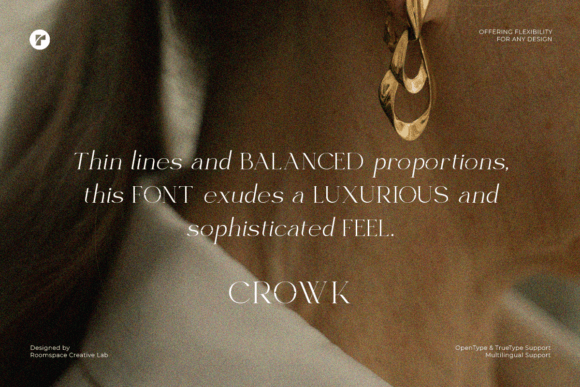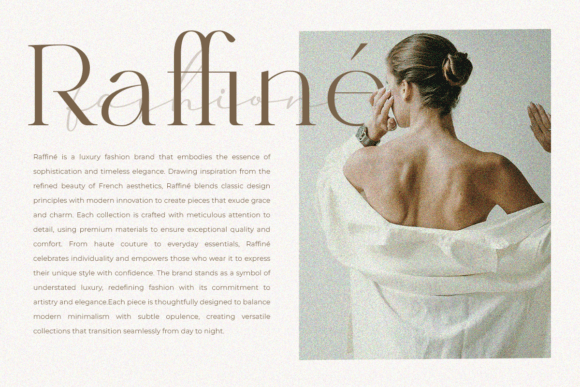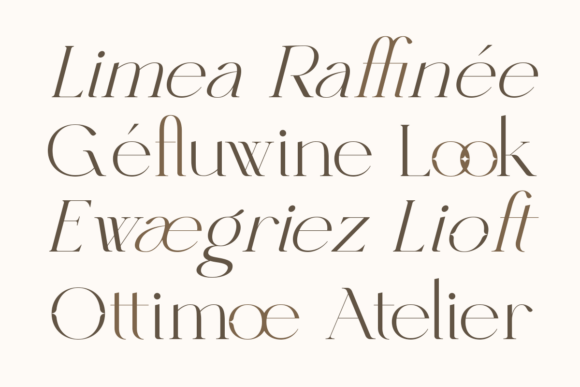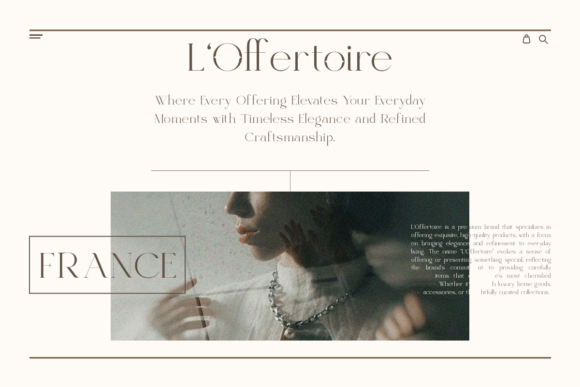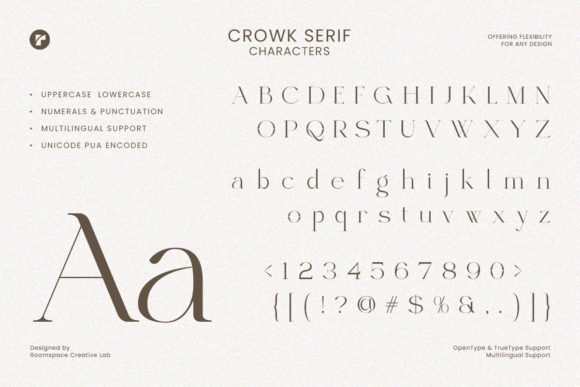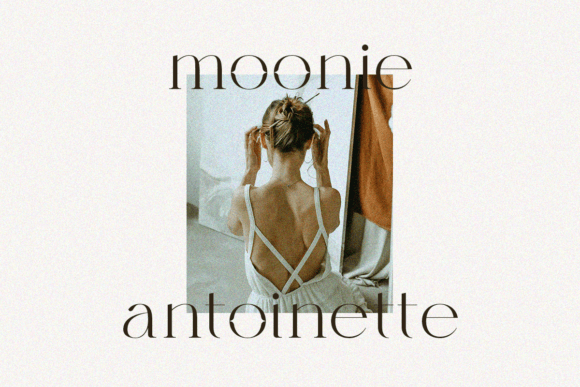
Crowk Font: Elevate Your Design with Timeless Luxury
In the world of typography, a well-crafted font can make all the difference in elevating a design from ordinary to extraordinary. For designers and crafters seeking to infuse their high-end projects with sophistication and elegance, Crowk font is an exceptional choice. This luxury serif font is meticulously designed to bring a touch of refined charm and classic allure to a wide range of applications, from stunning logos and upscale branding materials to editorial layouts.
The Inspiration Behind Crowk
Crowk font draws inspiration from the timeless appeal of classic elegance, seamlessly blending modern aesthetics with a hint of sophistication. The result is a typeface that exudes luxury, poise, and refinement, making it perfect for designers who aim to create a statement of class and distinction. Whether you’re working on a high-end fashion brand, a luxury product, or a prestigious publication, Crowk font provides the perfect typographic solution.
Key Features of Crowk Font
Crowk font boasts a range of features that make it an excellent choice for designers seeking to create stunning, high-end designs. Some of its key features include:
- Serif Elegance: Crowk’s serif design adds a touch of sophistication and refinement to any project, making it perfect for luxury brands and high-end publications.
- Modern Aesthetics: The font’s modern aesthetic ensures that it remains fresh and contemporary, while still evoking a sense of classic elegance.
- Versatility: Crowk font is highly versatile, making it suitable for a wide range of applications, from logos and branding materials to editorial layouts and packaging.
- High Legibility: The font’s high legibility ensures that it remains clear and readable, even at smaller font sizes.
Use Cases for Crowk Font
Crowk font is an excellent choice for a wide range of design projects, including:
- Logo Design: Create a stunning logo that exudes luxury and sophistication with Crowk font.
- Branding Materials: Elevate your brand’s visual identity with Crowk font, perfect for business cards, letterheads, and packaging.
- Editorial Layouts: Add a touch of elegance to your publications with Crowk font, ideal for magazines, newspapers, and books.
- Packaging Design: Create luxurious packaging that stands out on store shelves with Crowk font.
Why Choose Crowk Font?
With so many fonts available, why choose Crowk font for your design projects? Here are just a few reasons:
- Unique and Distinctive: Crowk font offers a unique and distinctive look that sets it apart from more traditional serif fonts.
- High-Quality Design: The font is meticulously designed to ensure that it meets the highest standards of quality and craftsmanship.
- Multipurpose: The font’s versatility makes it suitable for a wide range of design projects, from luxury brands to editorial layouts.
In conclusion, Crowk font is an exceptional choice for designers and crafters seeking to elevate their high-end design projects with sophistication and elegance. With its timeless allure, modern aesthetics, and refined charm, this luxury serif font is perfect for creating stunning logos, upscale branding materials, and editorial layouts. Whether you’re working on a luxury brand, a prestigious publication, or a high-end product, Crowk font provides the perfect typographic solution.